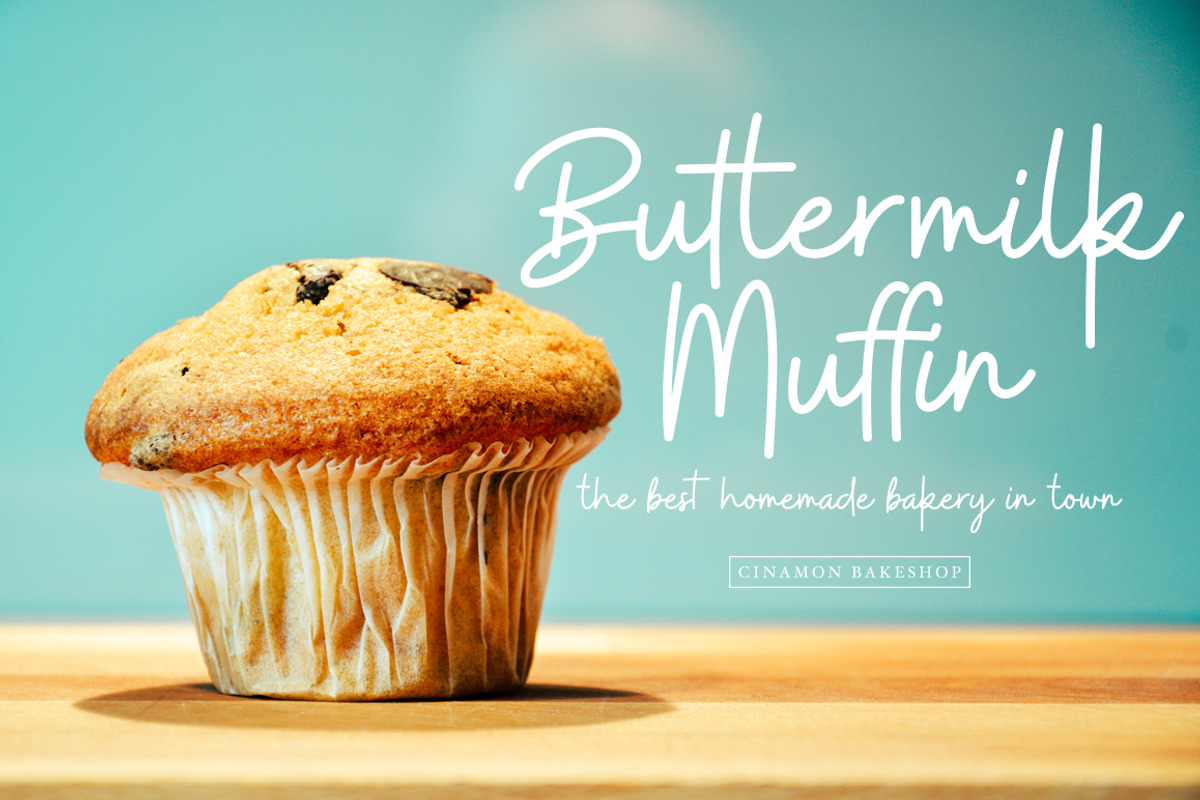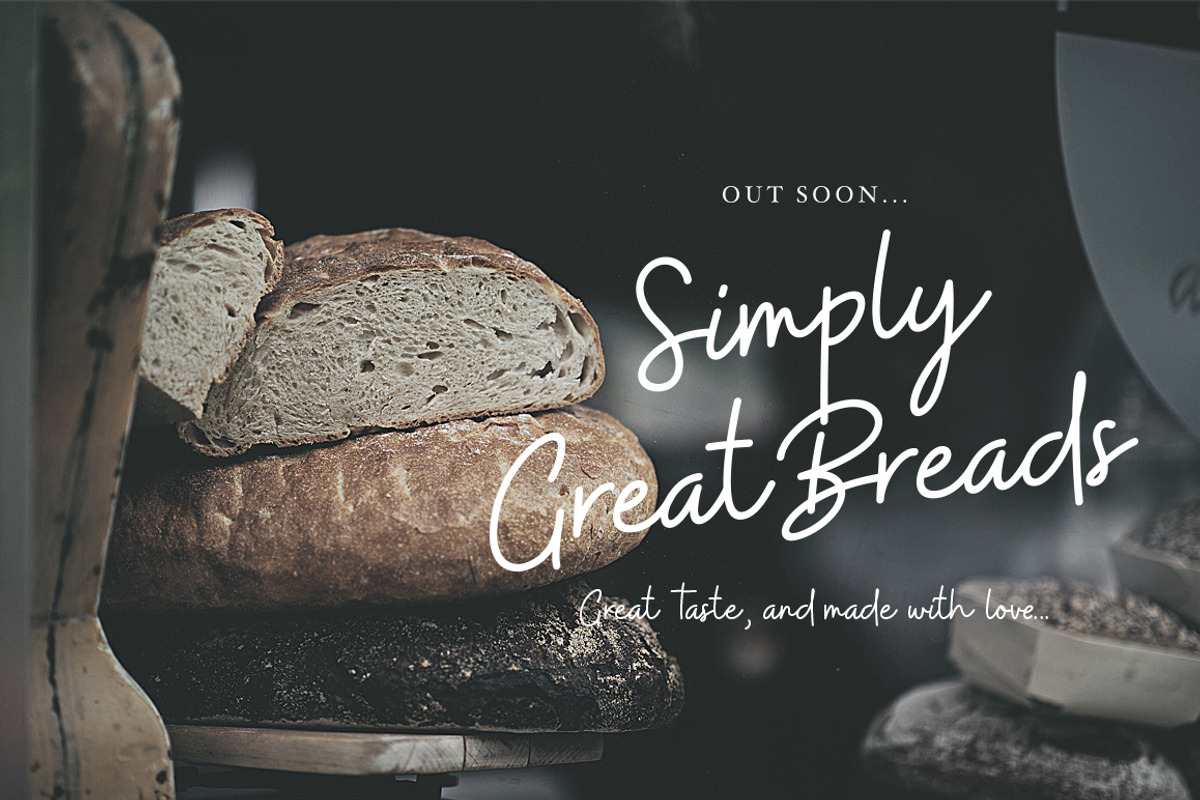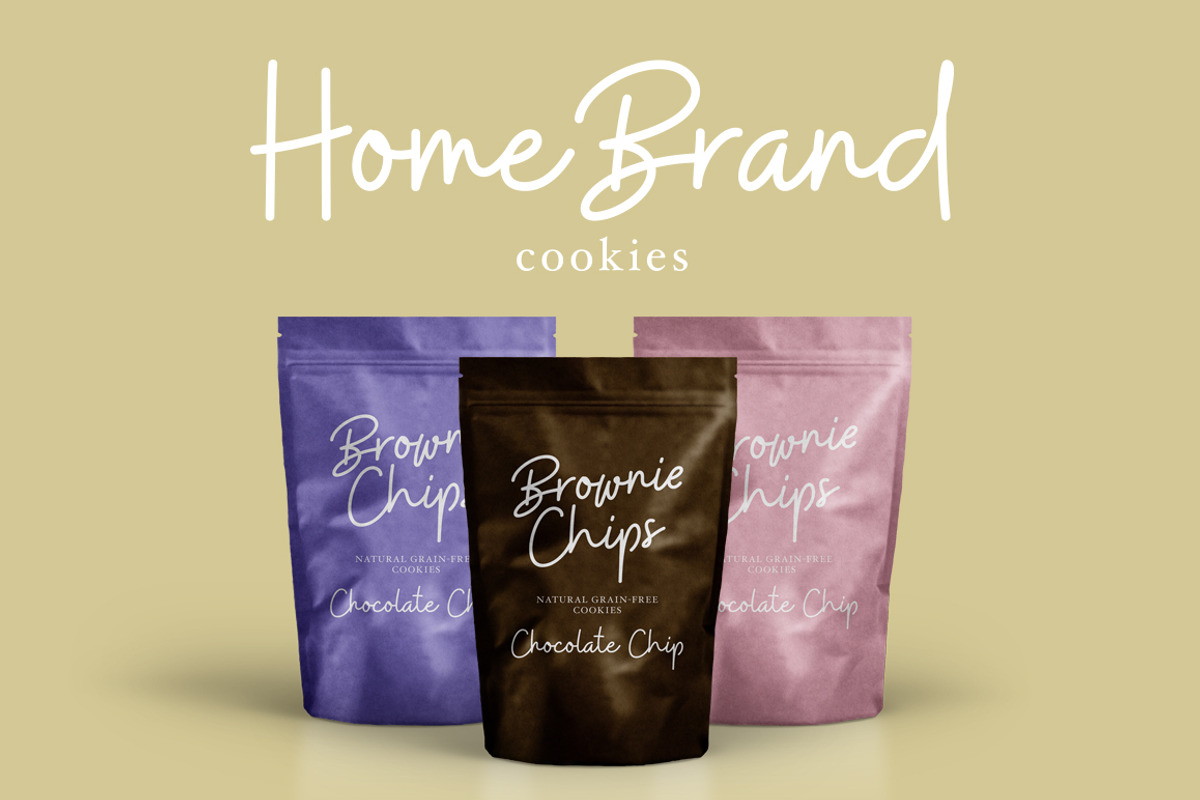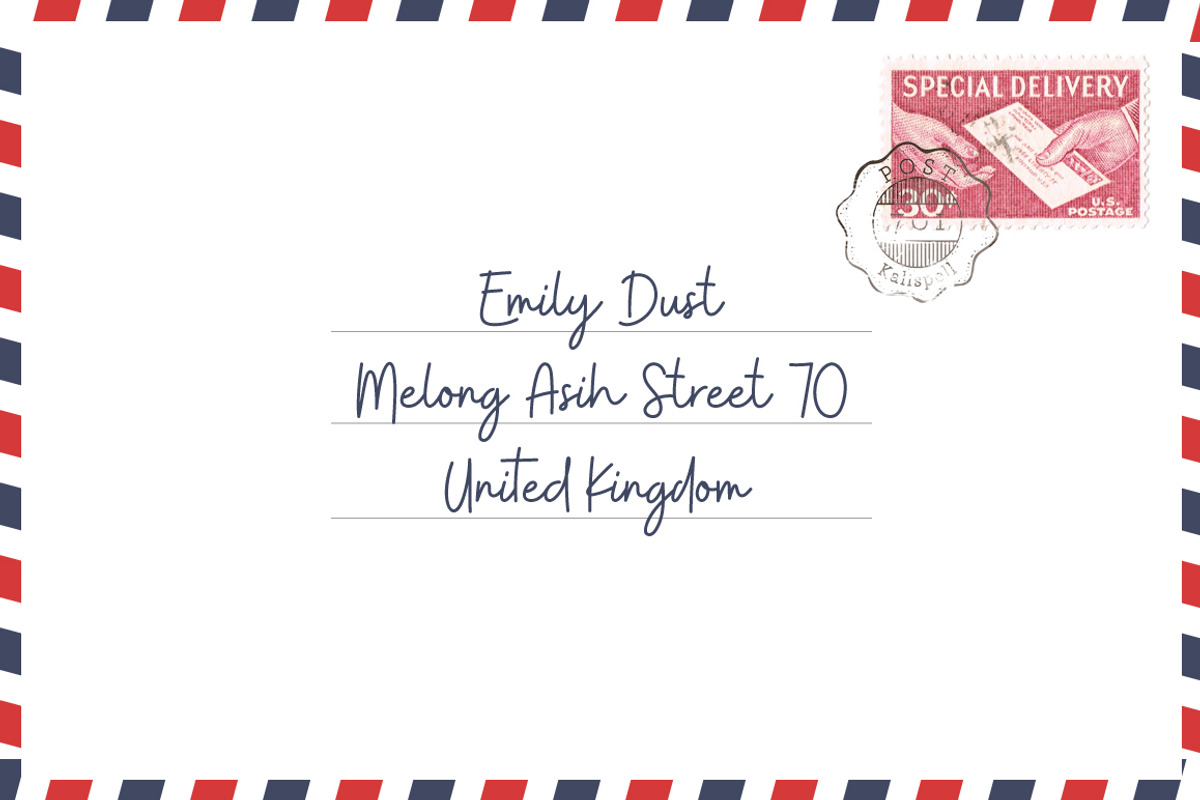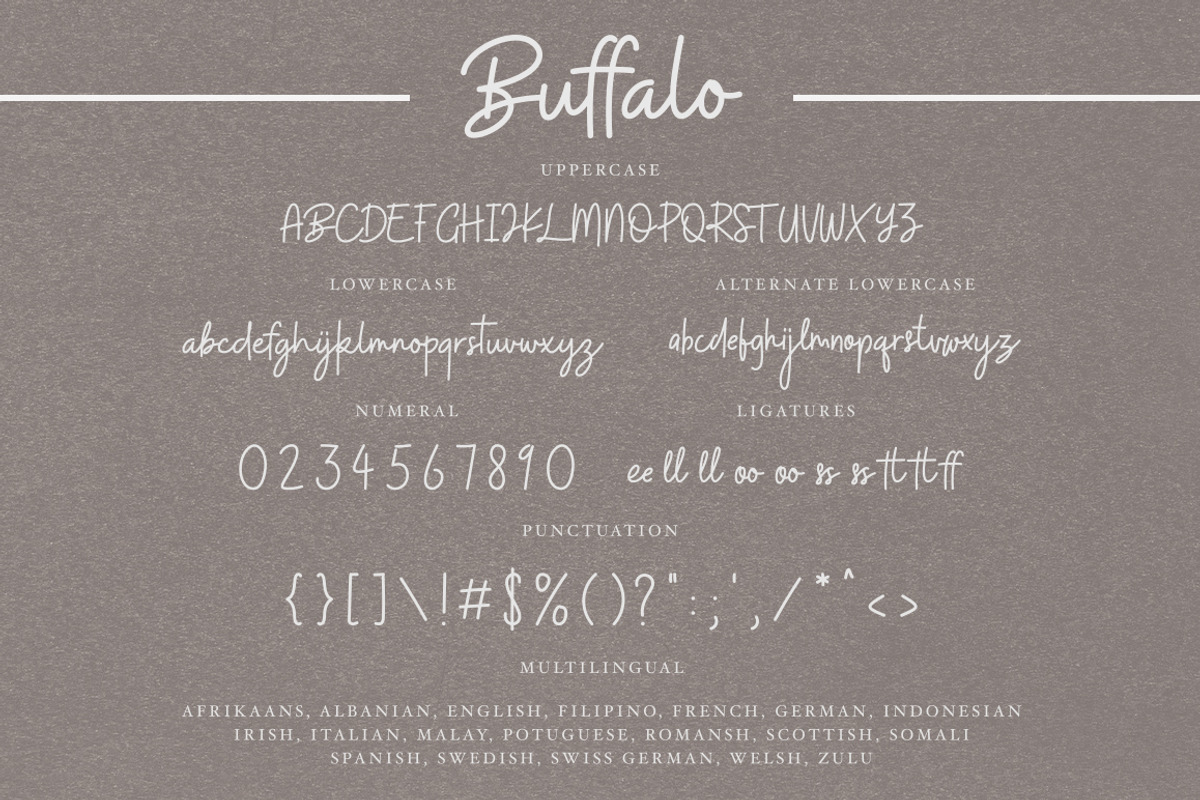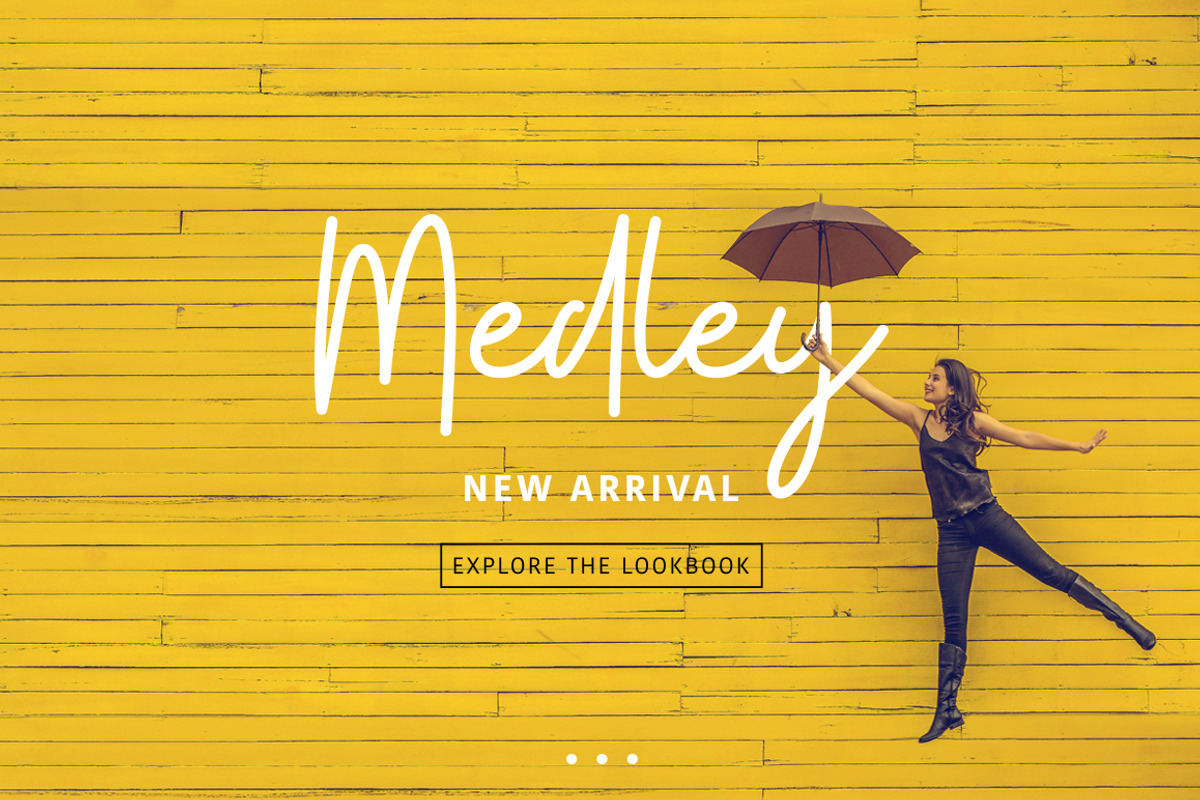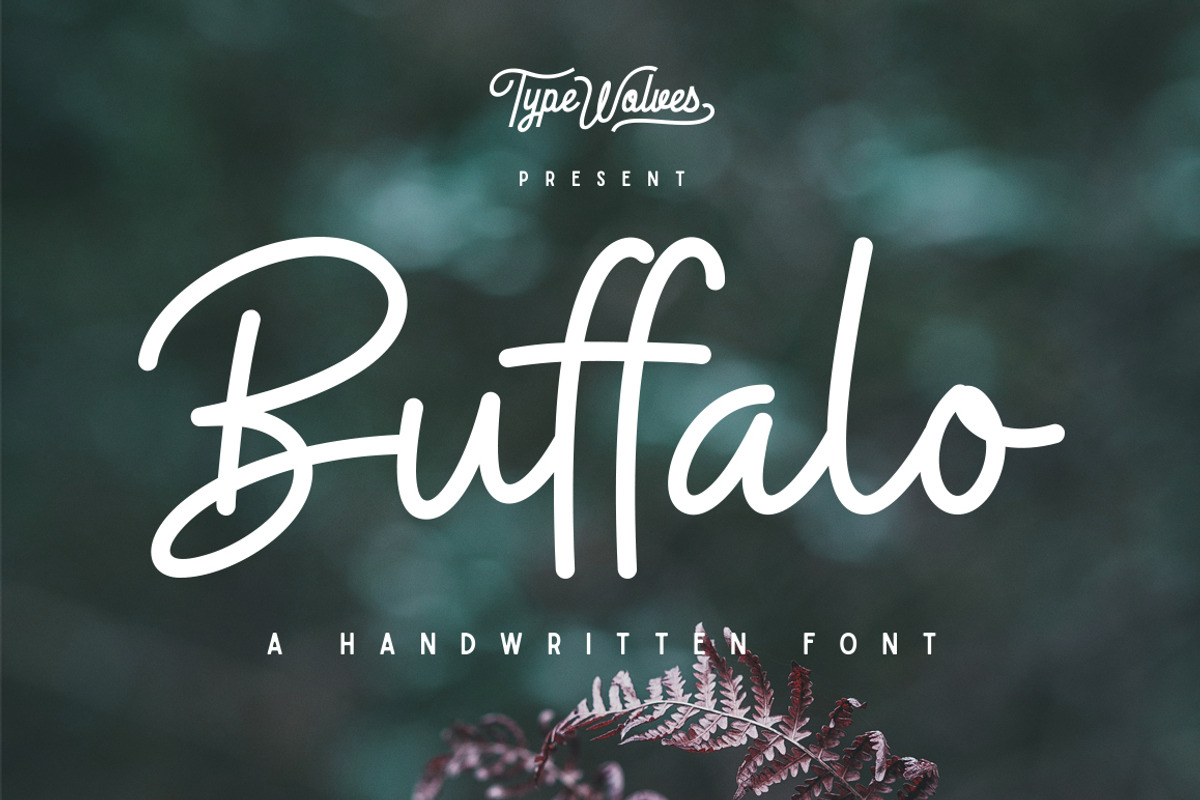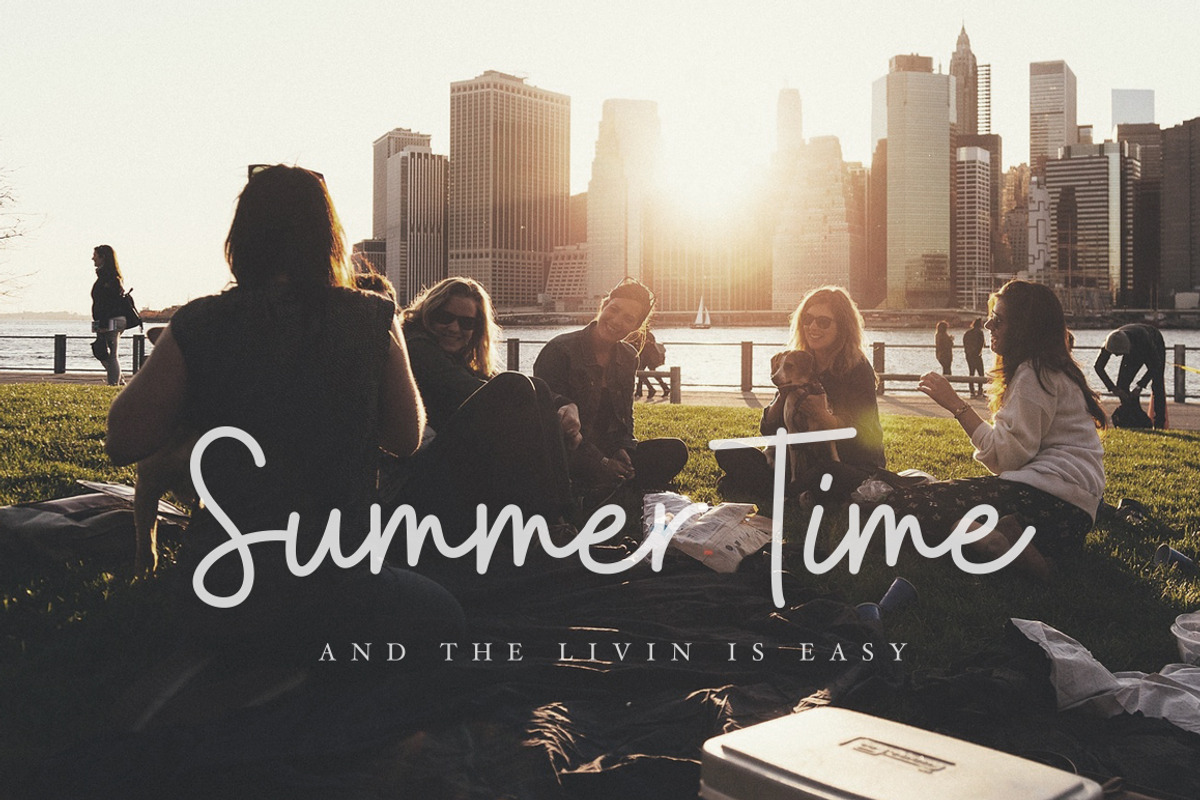
Buffalo Font
Buffalo perfect for greeting cards, magazine, branding, social media, print, packaging, and many more.
Hi, Buffalo have an alternate character from a-z, this font is very easy and simple for purposes of your design project. Buffalo have two sets of lowercase letters, uppercase letters, punctuation, numbers, and multilingual.